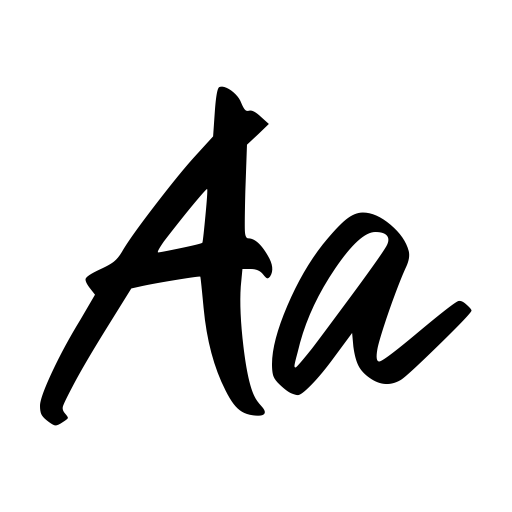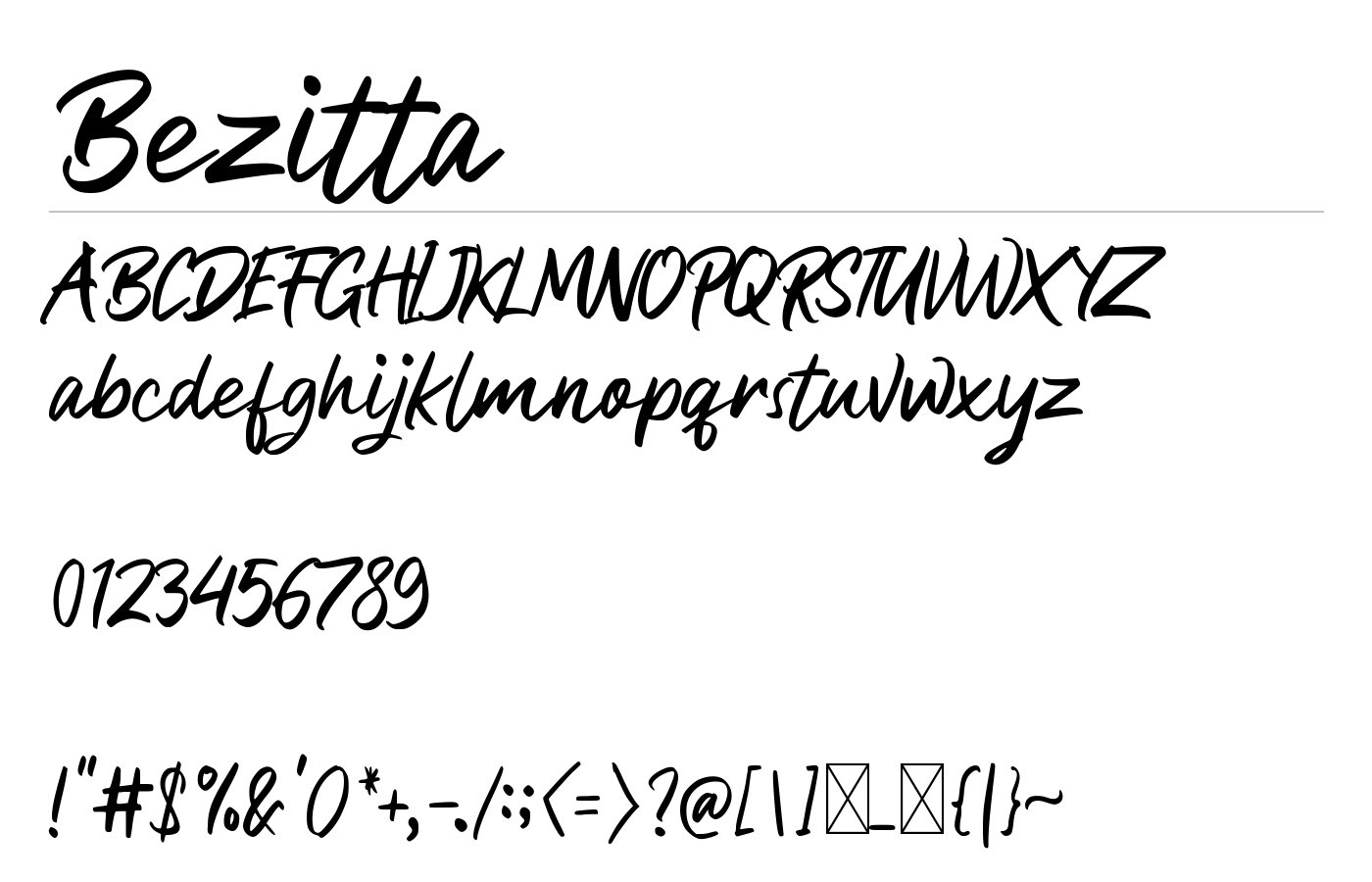
Bezitta is a lively and modern script font with a casual yet polished feel, featuring smooth, flowing strokes and a handwritten style that brings warmth and personality. Its moderately high x-height and consistent stroke weight make it highly legible while maintaining a natural, dynamic rhythm, making it ideal for creative branding, invitations, and expressive headlines that seek a personal touch. This font works well in designs where approachability and elegance are key, such as lifestyle blogs, boutique logos, or artistic projects.
Bezitta Font
About Bezitta Font